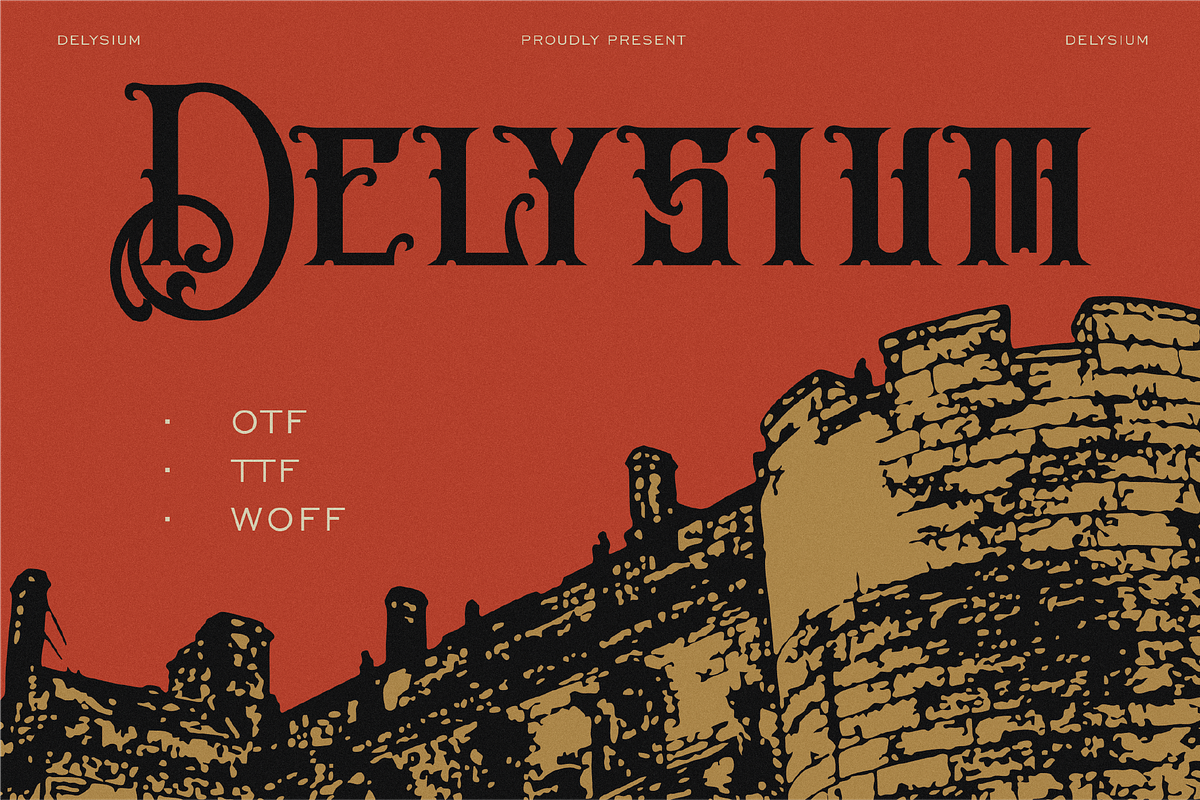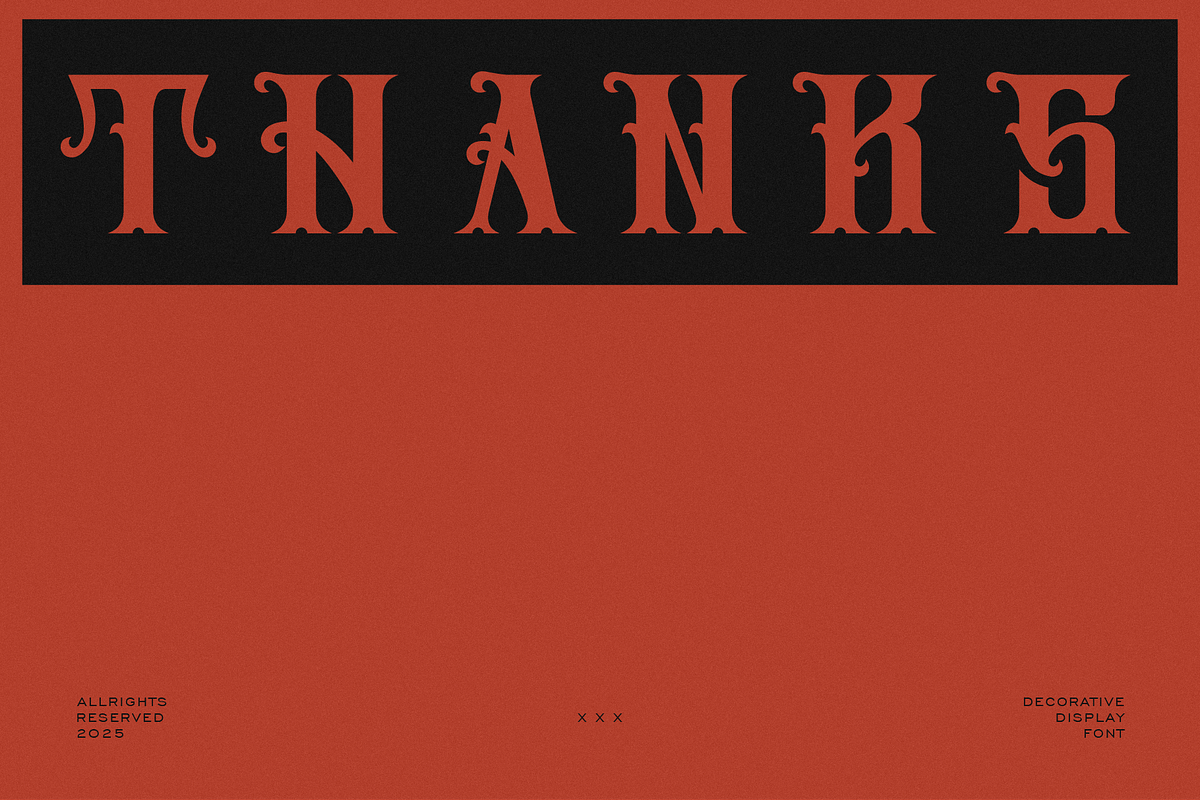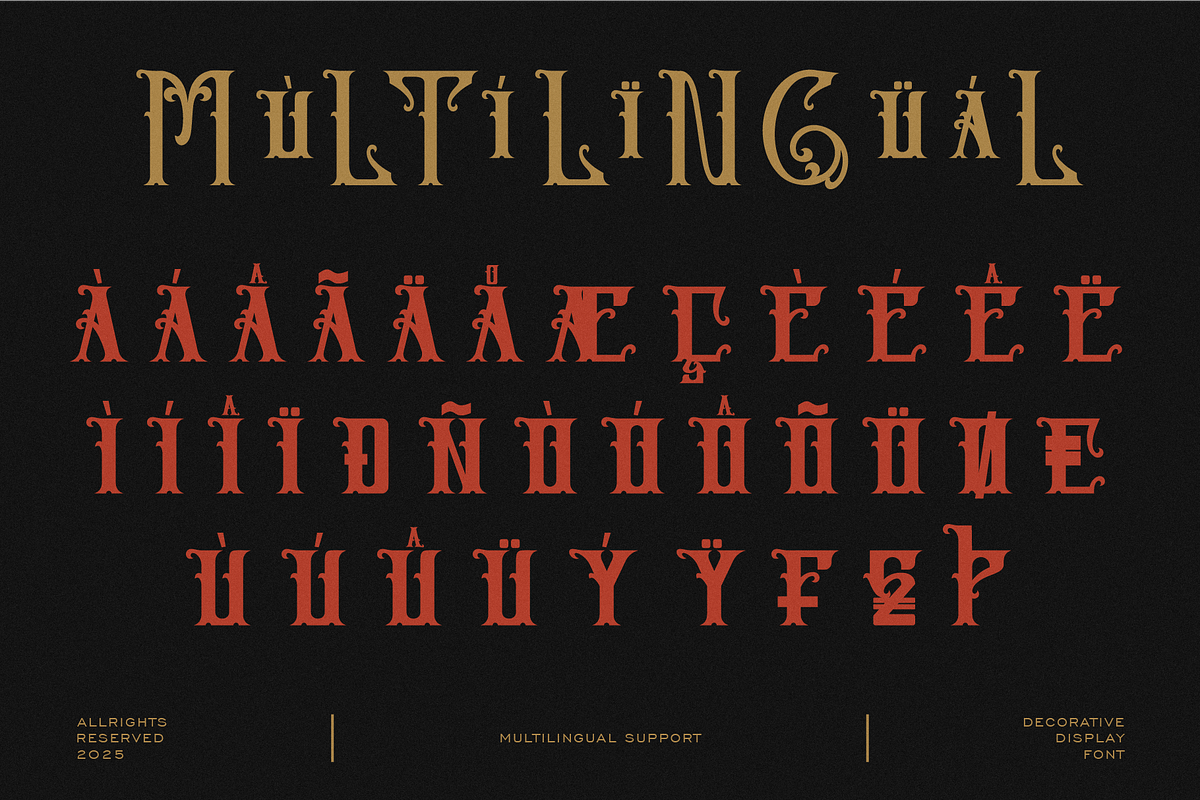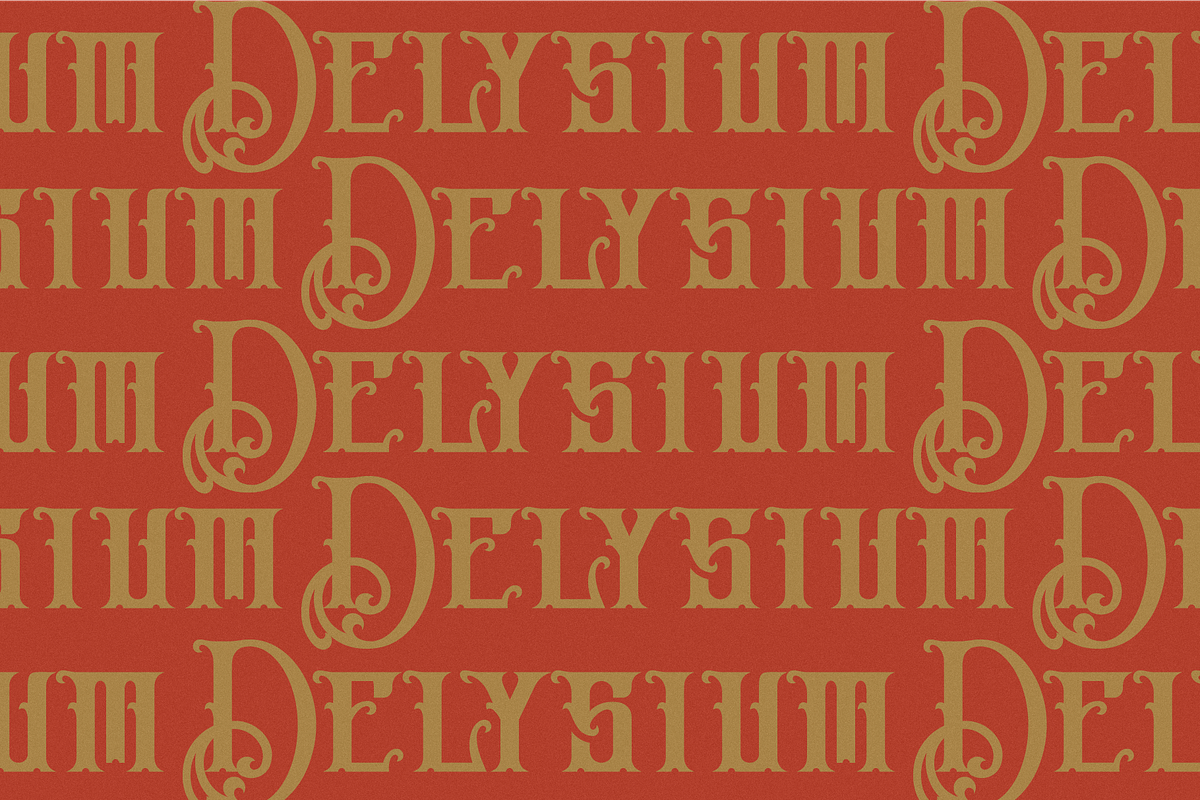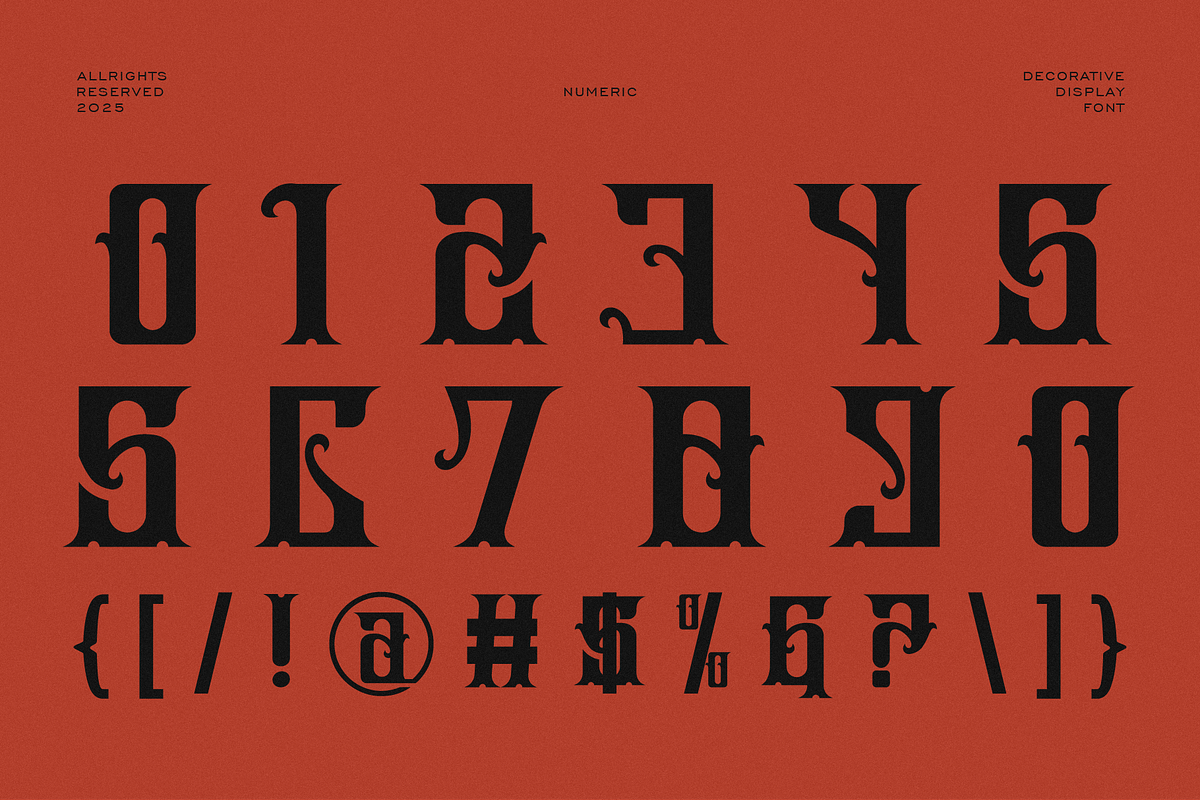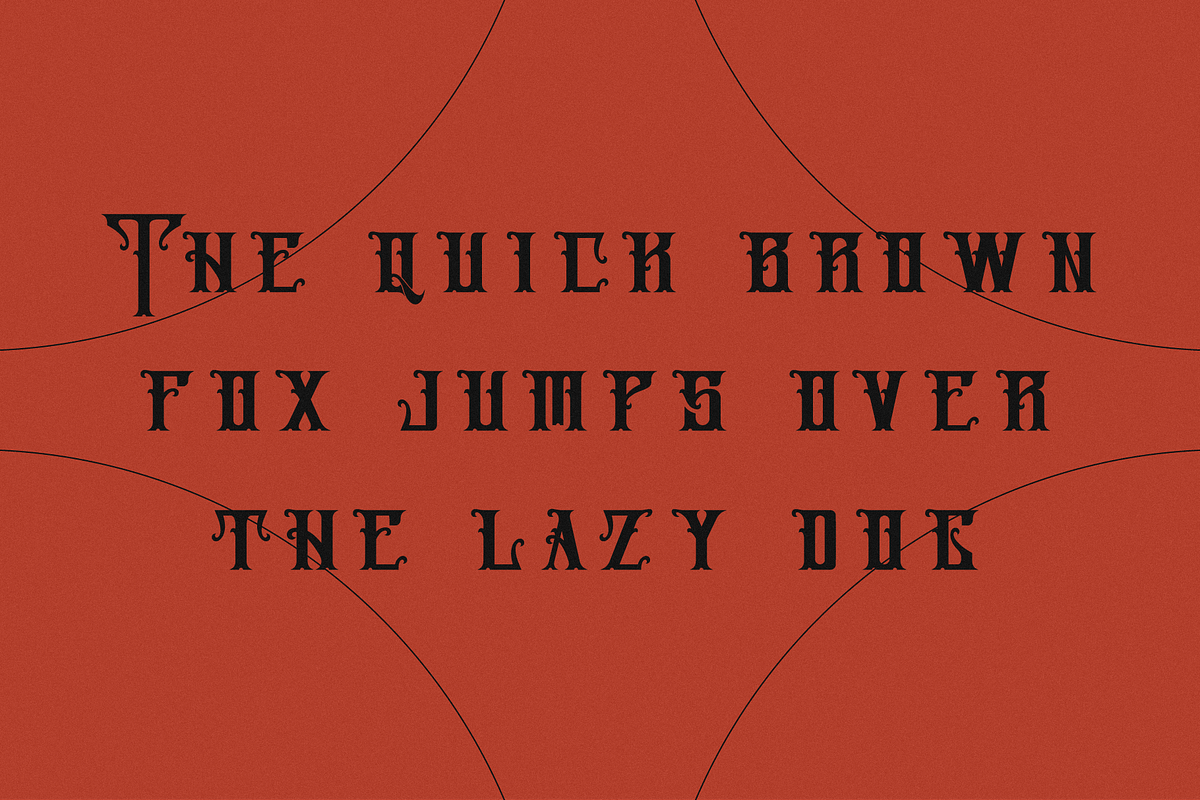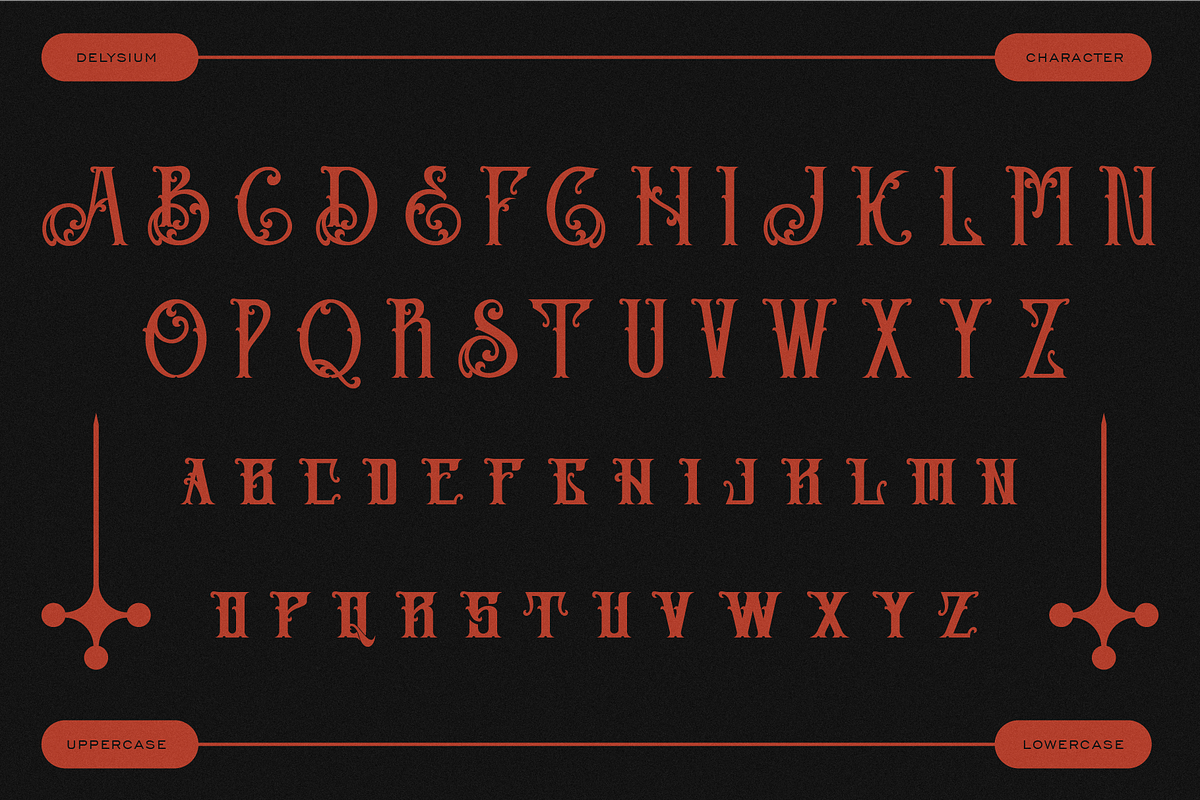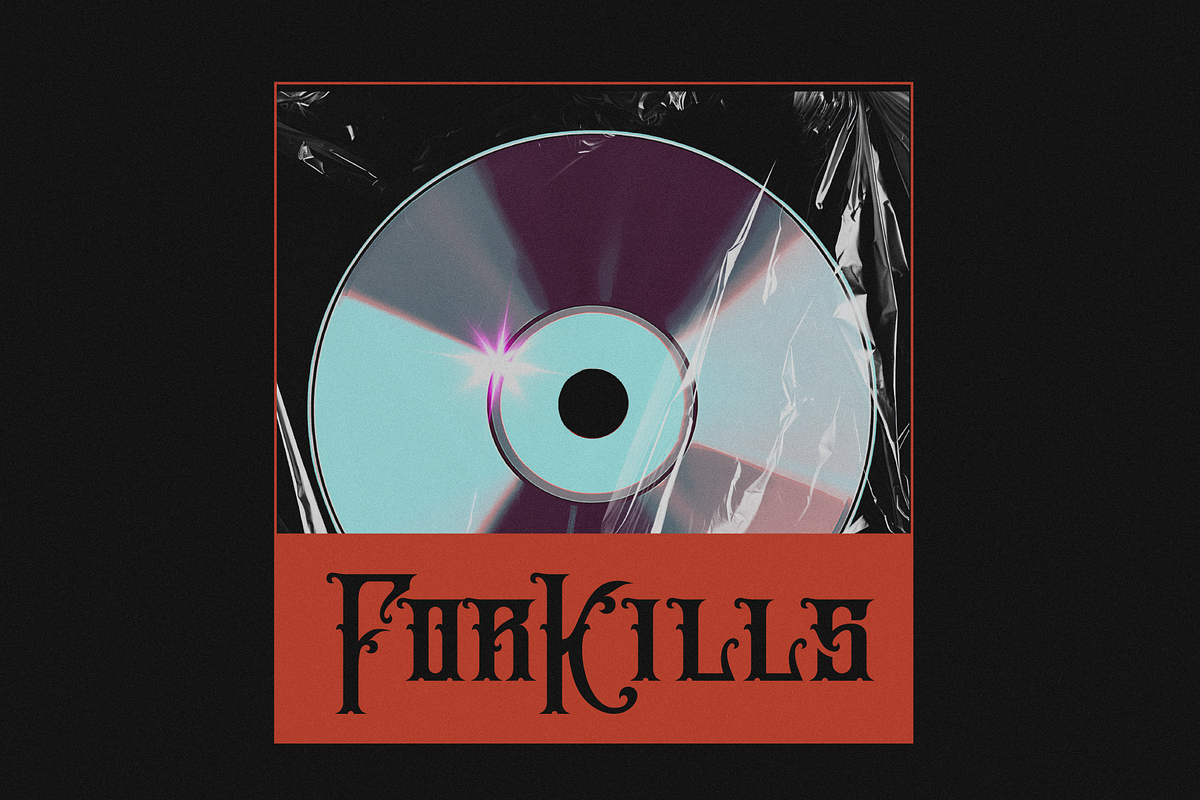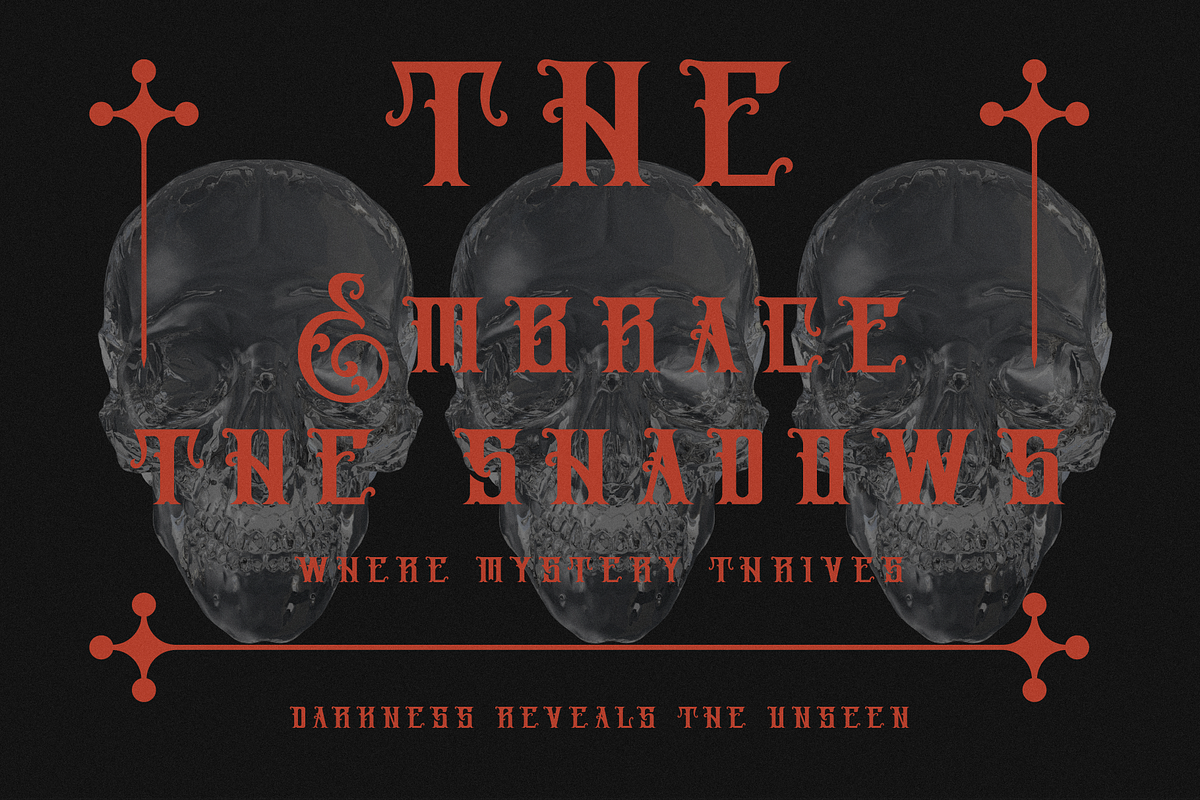
Delysium - A Display Font
Delysium is a bold, gothic display font that carries an aura of historical grandeur and mystique. Its intricate serifs and distinct letterforms provide a sense of drama, making it perfect for projects that require a medieval or vintage feel.